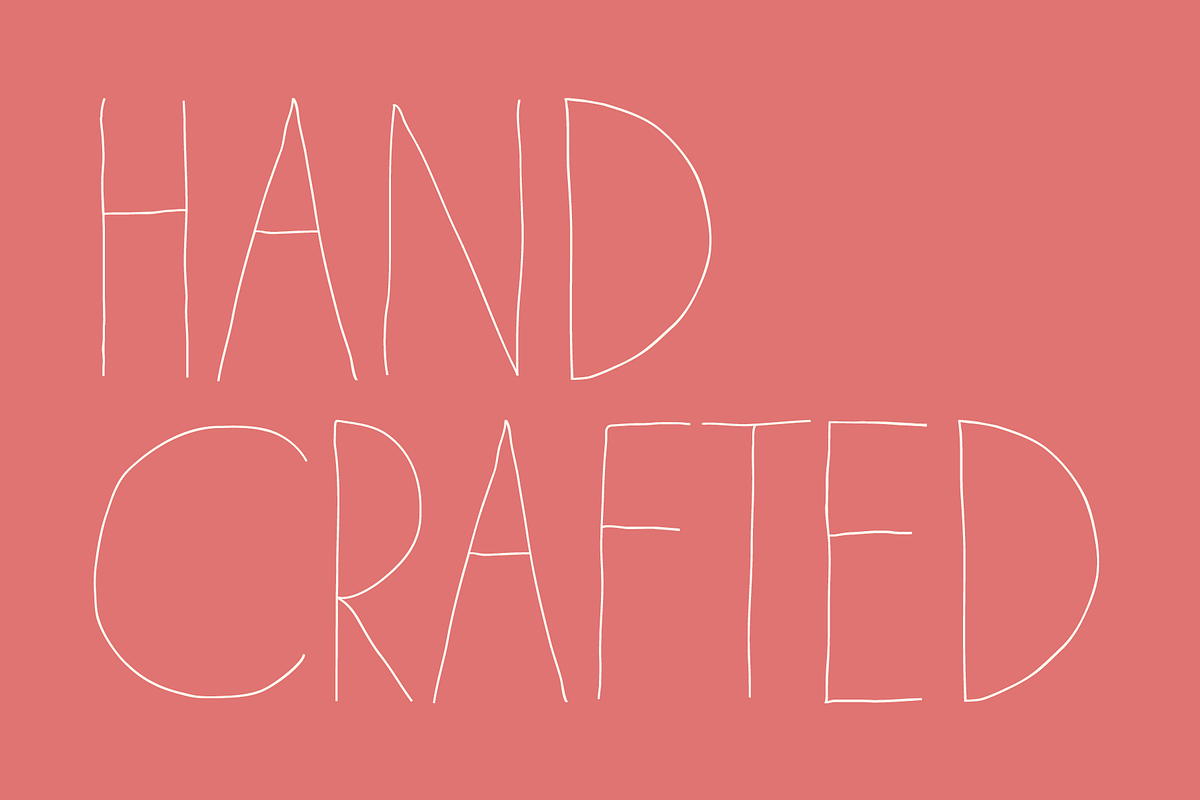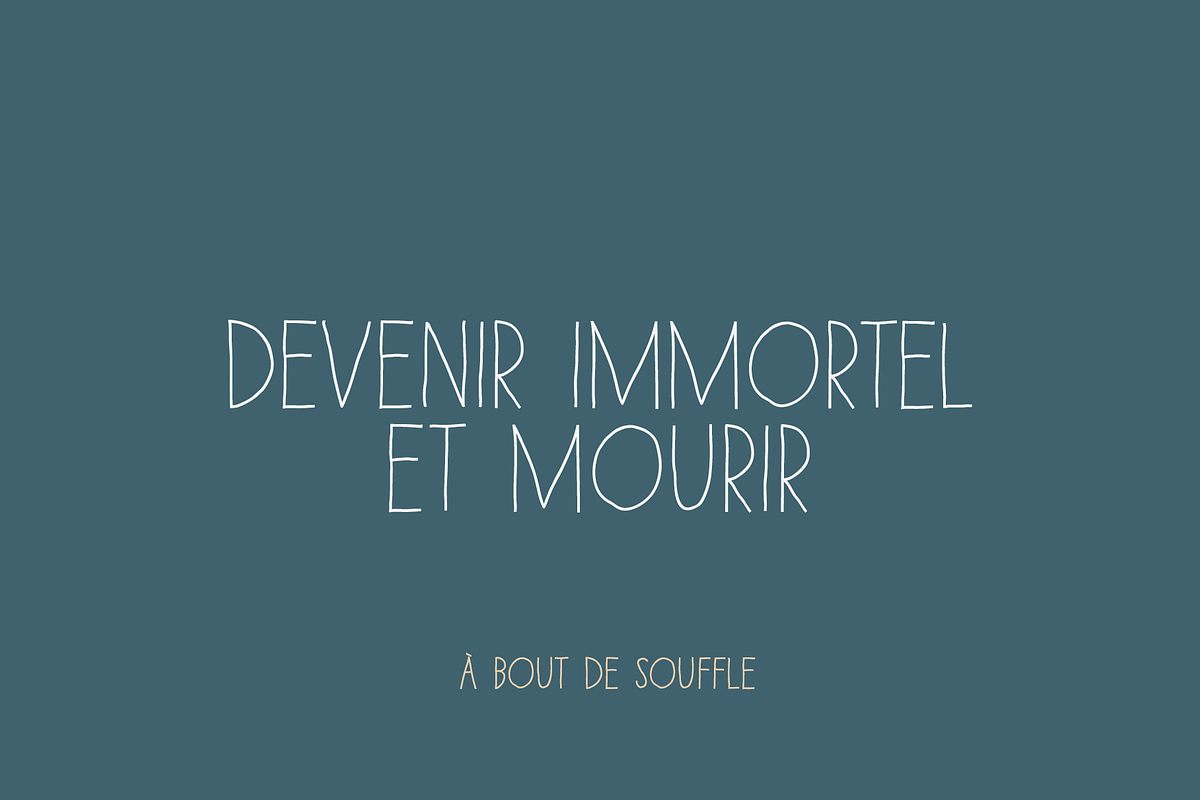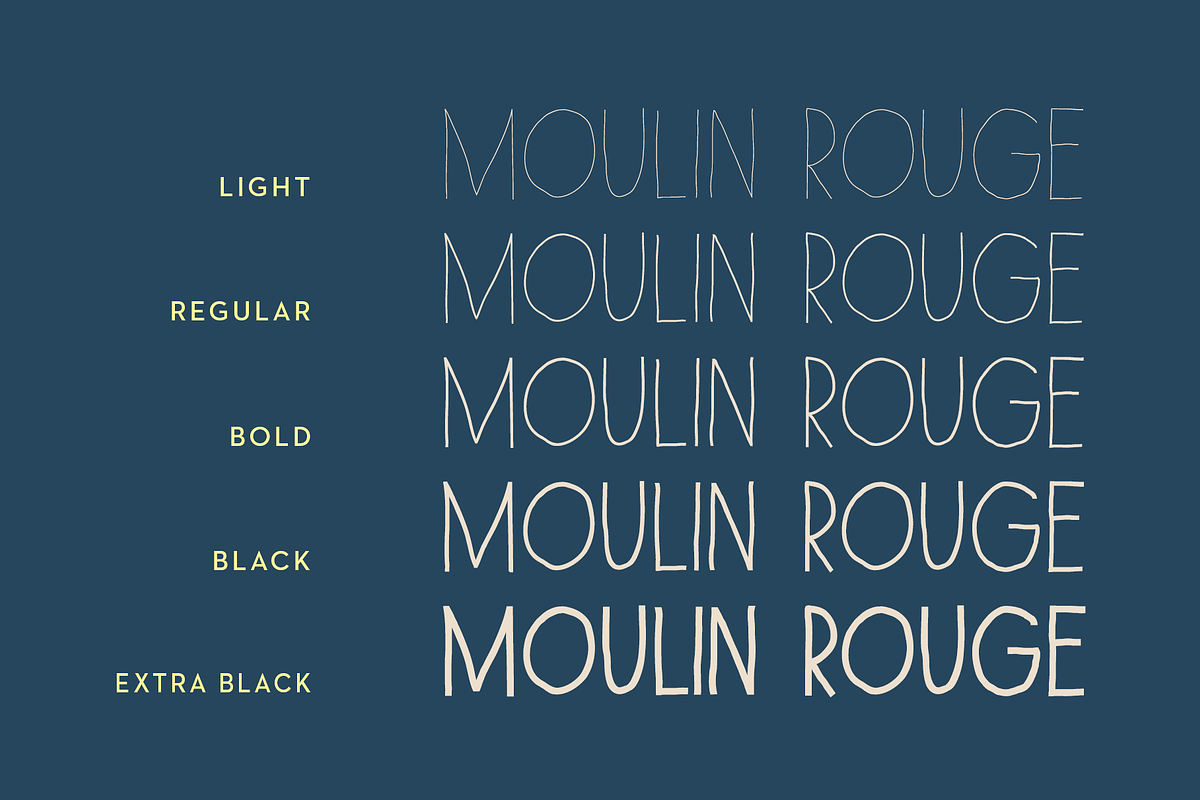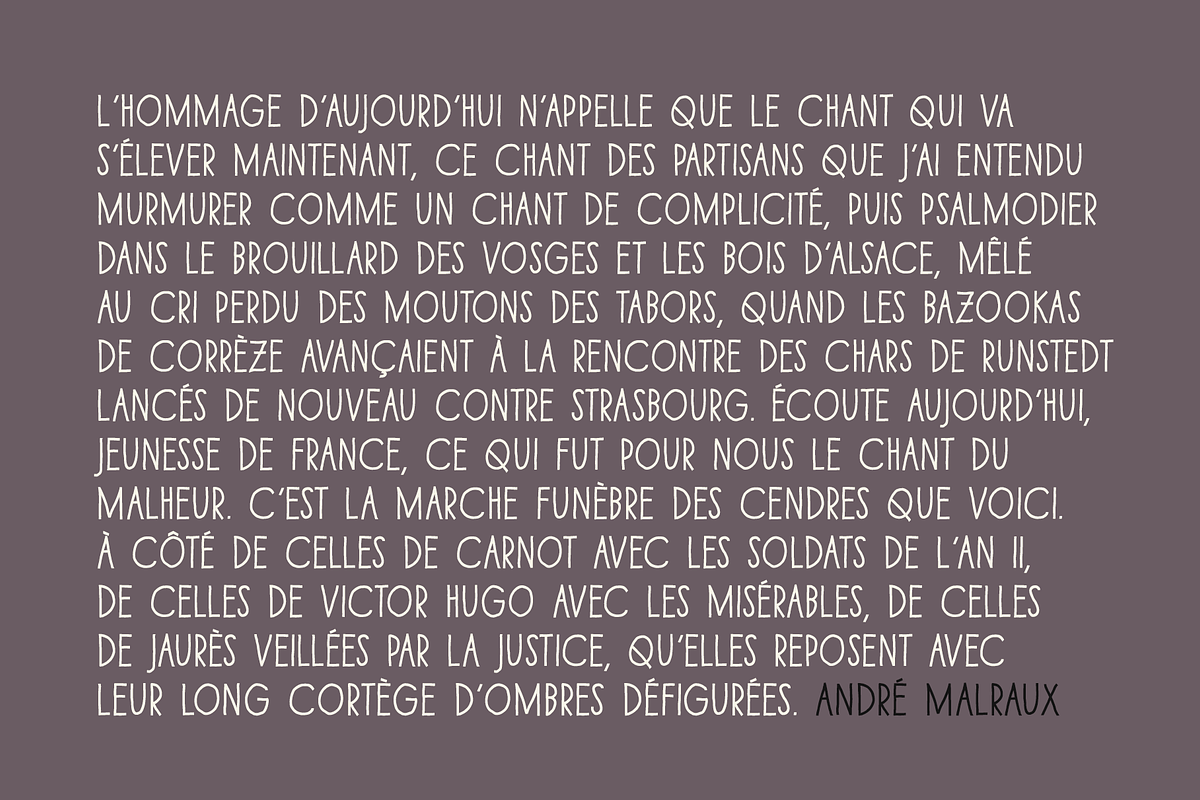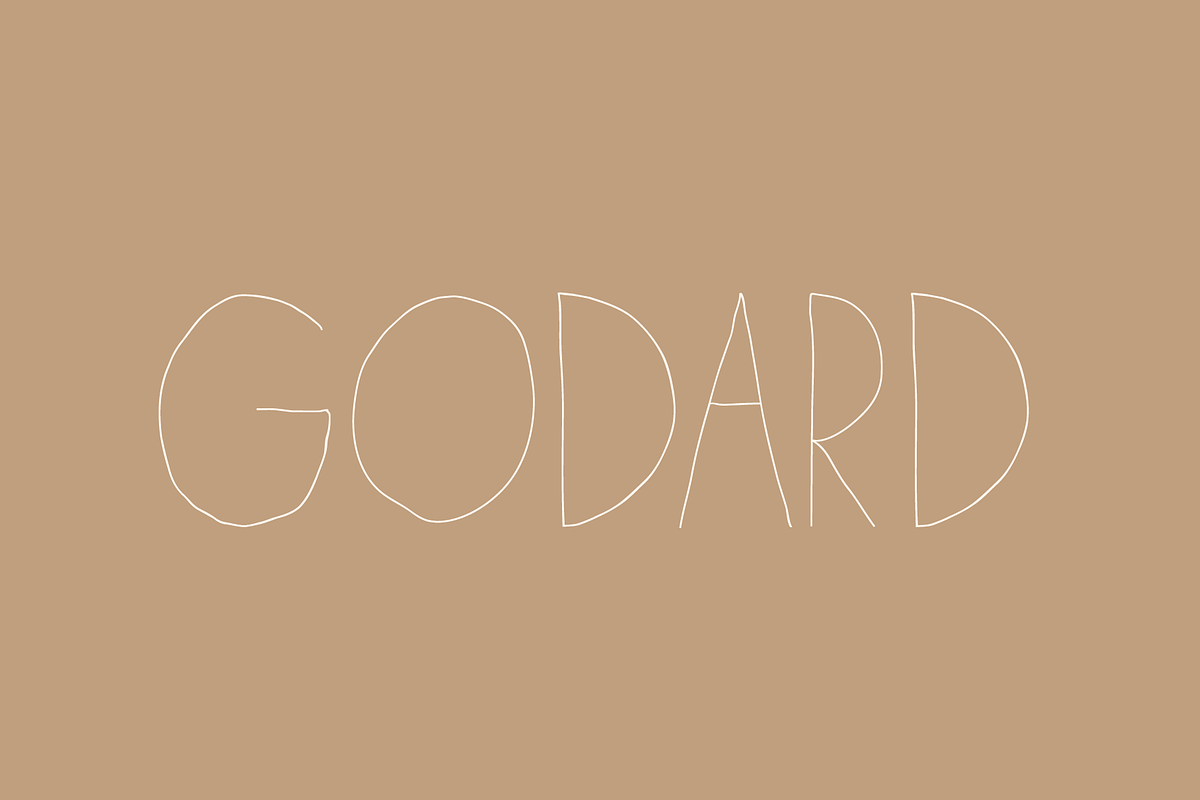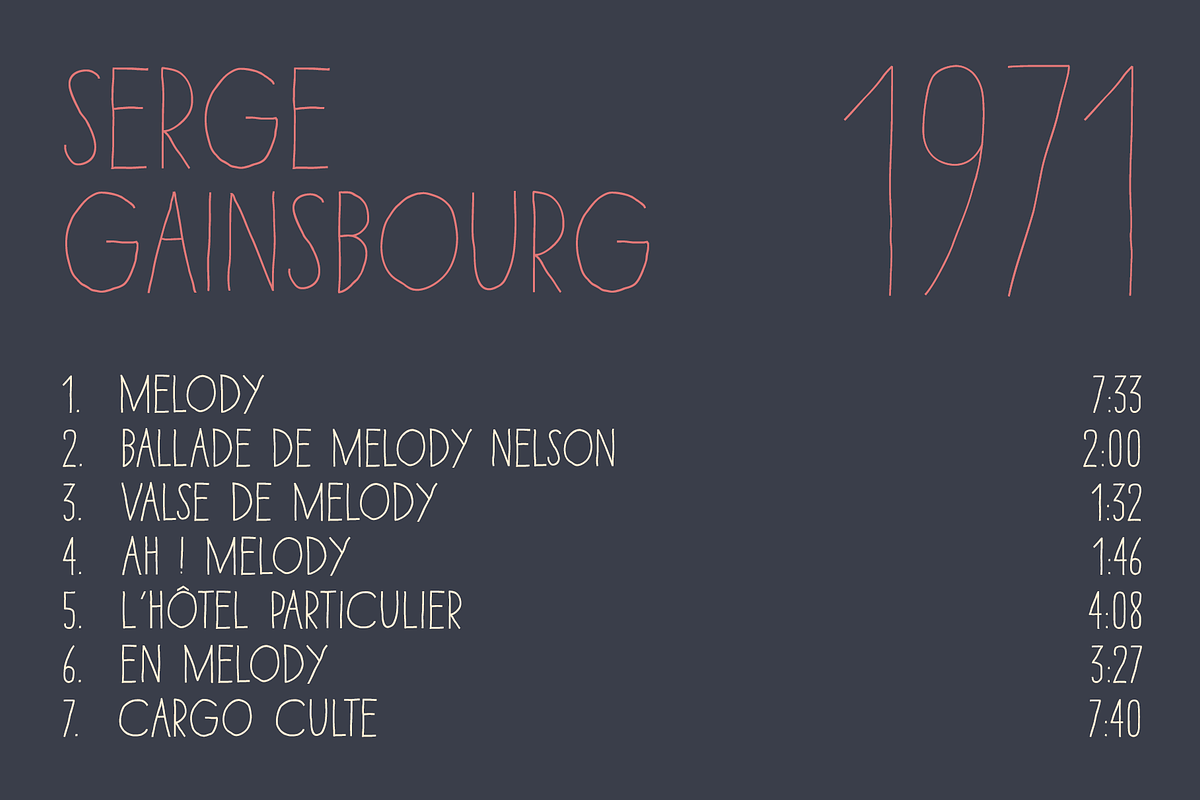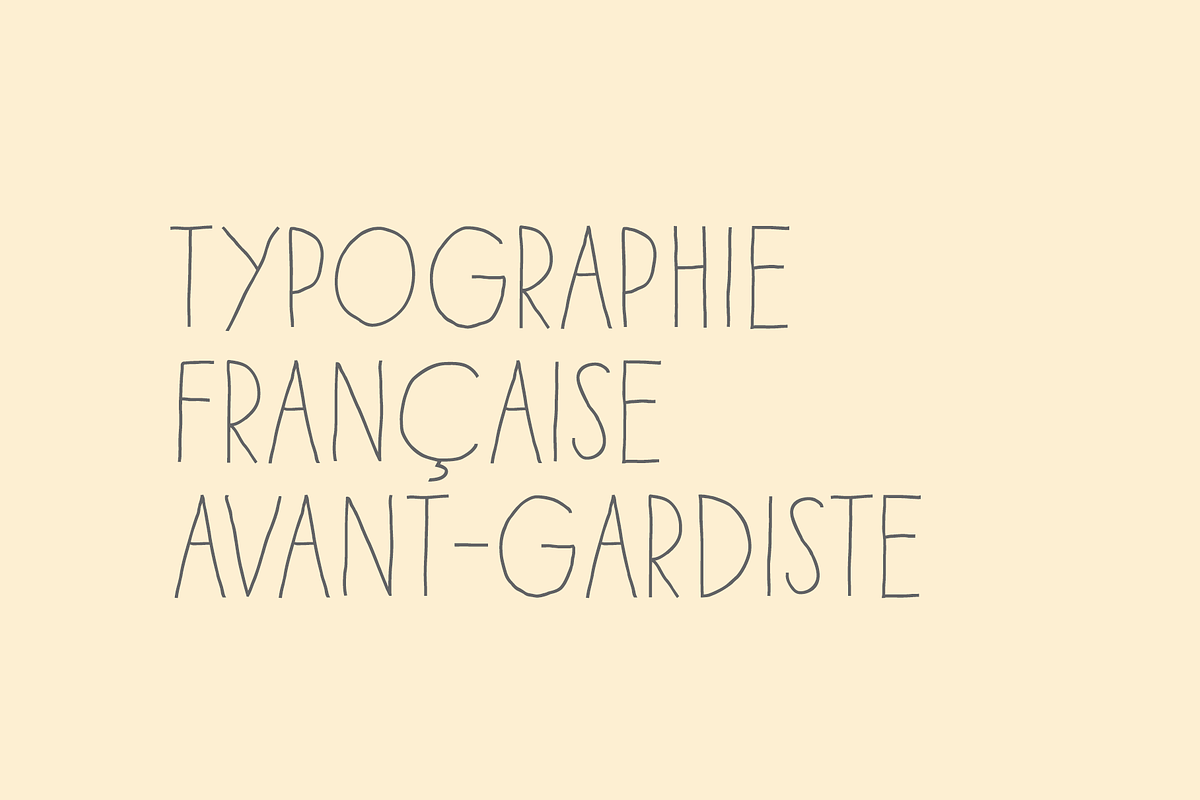
Paris Font Pack
Paris Font Pack by S&C Type is a font selected for branding, posters, packaging, typography.
Why Paris Font Pack is worth a look
Paris Font Pack by S&C Type fits naturally into Branding, posters, packaging, typography.